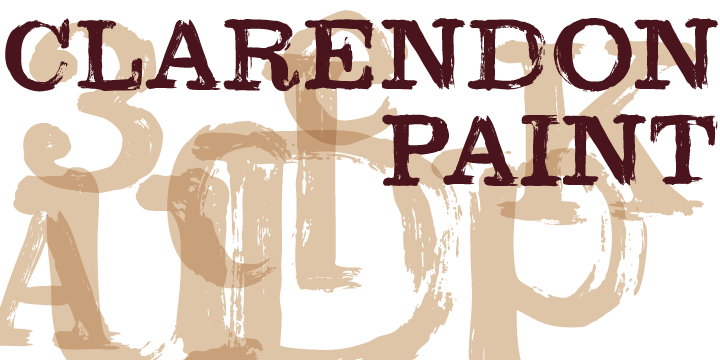
Fonts aren’t just letters; they’re personality, history, and texture rolled into design. And when a classic serif meets raw, hand-painted imperfection, something special happens. That’s the essence of Clarendon Paint Font — a gritty, artistic take on one of typography’s most recognized styles.
Completely hand-painted and brimming with vintage charm, Clarendon Paint isn’t for boring designs. It’s bold, rough around the edges, and perfect for anyone looking to add authentic character to posters, branding, or creative art projects.
What Makes Clarendon Paint Font Unique?
🎨 Hand-Painted Texture
Unlike the clean, polished Clarendon you might know, Clarendon Paint features rugged brush strokes, giving it a hand-crafted, organic look.
🖌 Classic Meets Grit
It keeps Clarendon’s bold, slab-serif structure — known for its 19th-century Western feel — but overlays it with real paint textures and rough edges.
🧩 Perfect for Statement Pieces
Its raw look makes it a striking choice for titles, logos, and creative work where you want your typography to be the star.
🕰 Vintage & Contemporary
The blend of a timeless serif base with distressed painting feels both nostalgic and edgy — great for retro designs or modern grunge.
Where to Use Clarendon Paint Font
Because of its bold, textured style, Clarendon Paint isn’t meant for paragraphs of text. But it’s unbeatable for:
✅ Posters & Flyers – Music gigs, festivals, art shows, or vintage markets.
✅ Branding & Logos – Especially for coffee shops, breweries, barbershops, or any brand with a handmade feel.
✅ T-shirt & Merchandise Design – Slogans or logos that need a rugged, authentic touch.
✅ Album Covers & Movie Titles – For rock, indie, or retro-inspired projects.
✅ Signage & Labels – Chalkboard menus, wooden signs, or rustic product labels.
✅ Social Media Graphics – Announcements, quote posts, or ad creatives that stand out.
Why Designers Love Clarendon Paint
✨ Character & Texture
It’s imperfect by design — the uneven edges and brush marks bring warmth and humanity that digital fonts often lack.
🖋 Versatile Tone
Depending on color and layout, Clarendon Paint can look vintage Americana, modern grunge, or even playful craft-style.
🌟 Attention-Grabbing
Its bold slab serifs naturally catch the eye, while the painted effect keeps it from looking sterile.
🧠 Storytelling
Every letter feels like it’s telling a story — making it ideal for designs that need authenticity.
Design Tips: How to Use Clarendon Paint Font Effectively
🖌 Go Big: Its painted texture shines best in large headlines or single words.
🎨 Contrast with Simple Fonts: Use a clean sans-serif or light serif for body text to keep designs balanced.
🌈 Play with Color: Try off-white on dark backgrounds or bright vintage shades for retro posters.
📐 Add Layers: Combine with paint splatters, chalk textures, or background illustrations.
⚡ Use Minimal Text: The font is a statement itself — keep your message short and impactful.
Creative Ideas to Try
🎸 Indie Band Poster: Bold title in Clarendon Paint over a grungy background.
🧢 Streetwear Logo: A single word brand name with texture adds instant authenticity.
🍺 Craft Beer Label: Combine vintage iconography and painted typography.
🖼 Wall Art Quote: Turn a motivational word into textured art.
📦 Handmade Product Packaging: Perfect for candles, soap, or artisanal foods.
Why Clarendon Paint Works in Modern Design
Final Thoughts: Vintage Meets Grit
Clarendon Paint Font is more than letters on a page — it’s attitude, history, and craft. Whether you’re designing a vintage gig poster, a hip brand, or a rustic café sign, its bold, hand-painted style adds a layer of authenticity and storytelling.